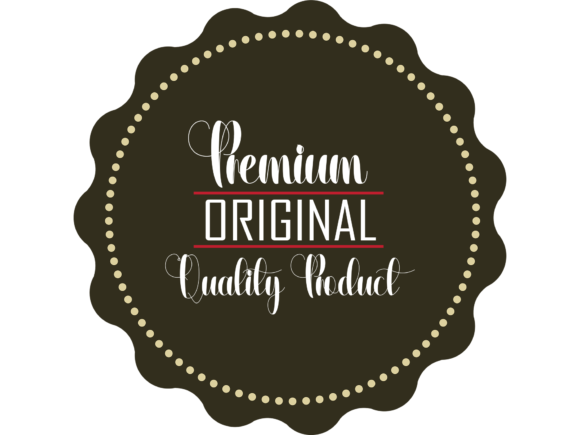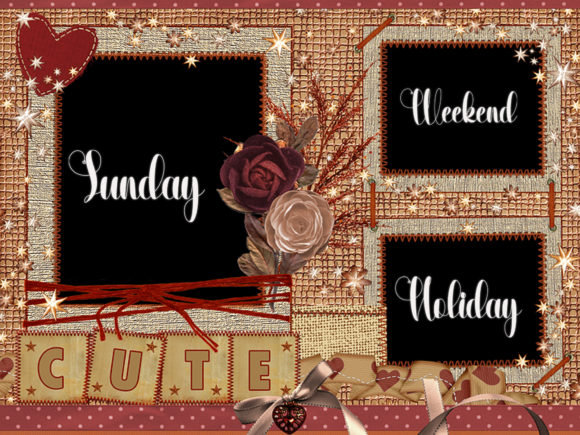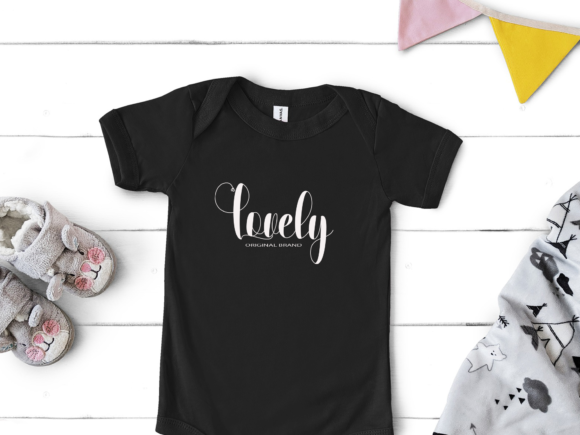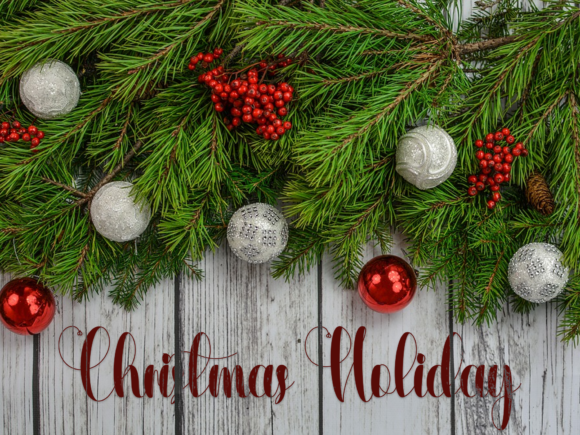
About Mandala Handmade Font
Mandala Handmade is an incredibly unique and inviting script font. Its characters are impeccably rounded and perfectly flow into each other to create an overall natural and exquisite look!